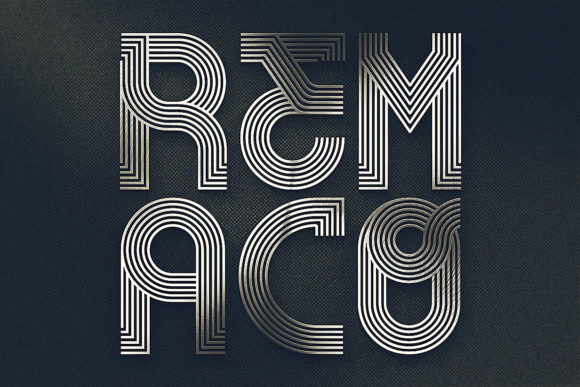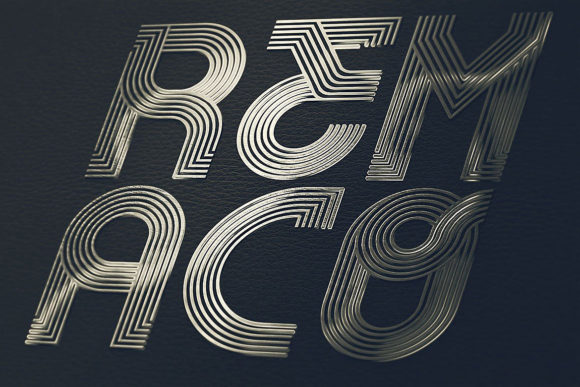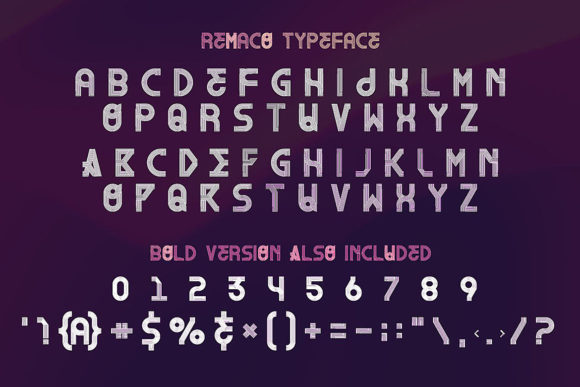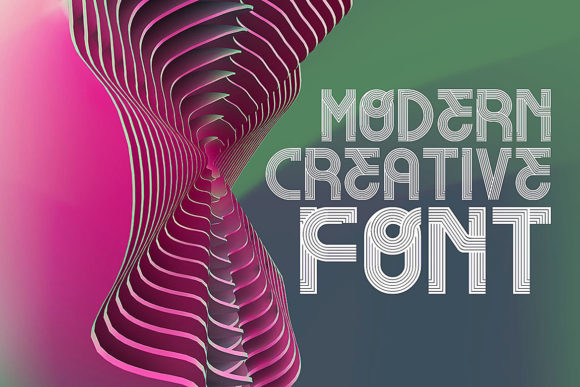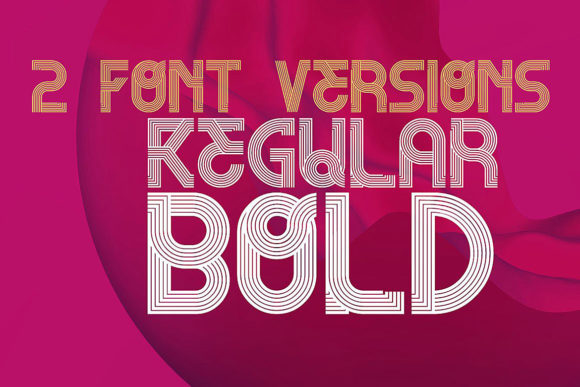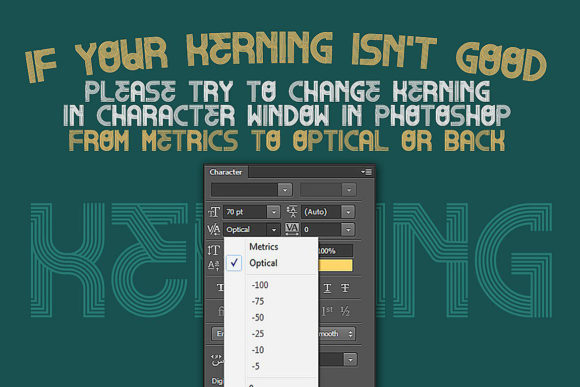
Introduction to Remaco Font
The Remaco is a geometric display font.
It has a modern style and is perfect for any creative project .
Key Features of Remaco Font
Why Choose Remaco Font?